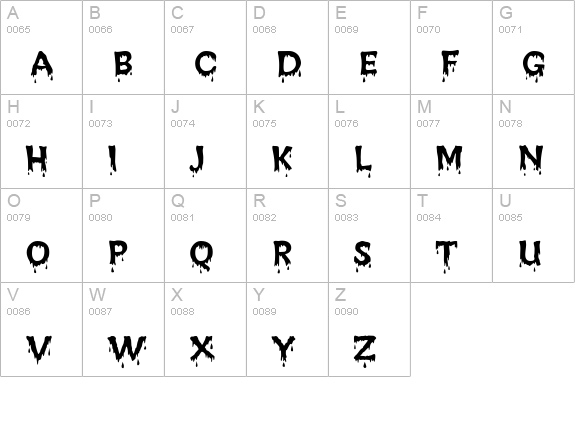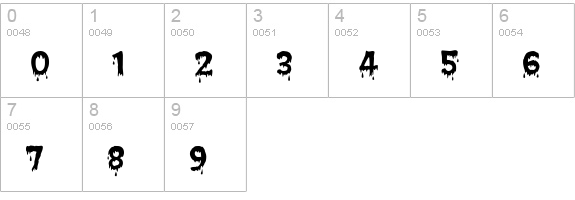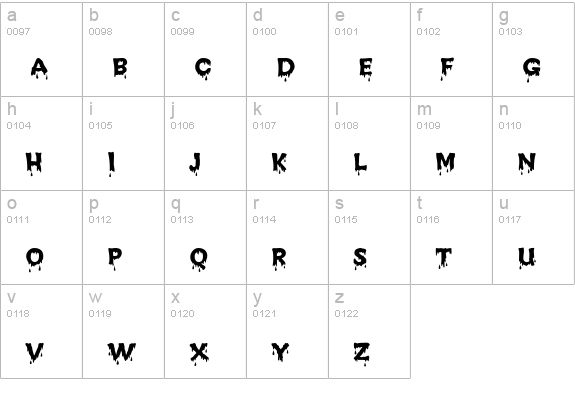
Creepy Regular is the standard, neutral variant in the Creepy typeface family \xE2\x80\x94 well suited to general body text, paragraphs, and standard typographic work.
Creepy Regular font is a hauntingly unique typeface that exudes an eerie vibe with its twisted and distorted letterforms. Perfect for adding a spooky touch to your designs, this font is ideal for Halloween-themed projects, horror movie posters, and paranormal-themed branding. What sets Creepy Regular font apart is its unsettling and unsettlingly familiar aesthetic, making it a standout choice for those looking to add a touch of the macabre to their designs. Its jagged edges and unsettling curves create an atmosphere of unease, perfect for capturing the attention of your audience and leaving a lasting impression. The best part? Creepy Regular font is available for free download at FontsMarket.com, making it easily accessible for all your design needs. Whether you're a professional graphic designer or a hobbyist looking to spice up your projects, this font is sure to add a chilling vibe to your work. Download Creepy Regular font today and unleash its eerie charm in your next project.